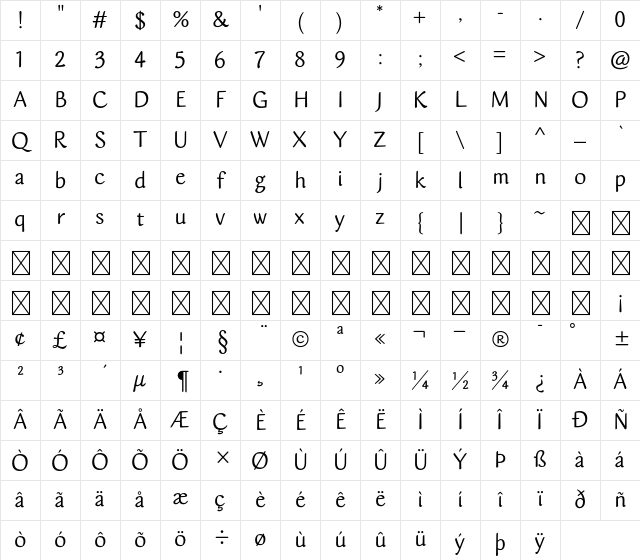
A P-OTF Michikusa StdN R
Style: R
Design Context for A P-OTF Michikusa StdN
A P-OTF Michikusa StdN is a composed and adaptable typeface that performs quietly and consistently across a wide range of design contexts.